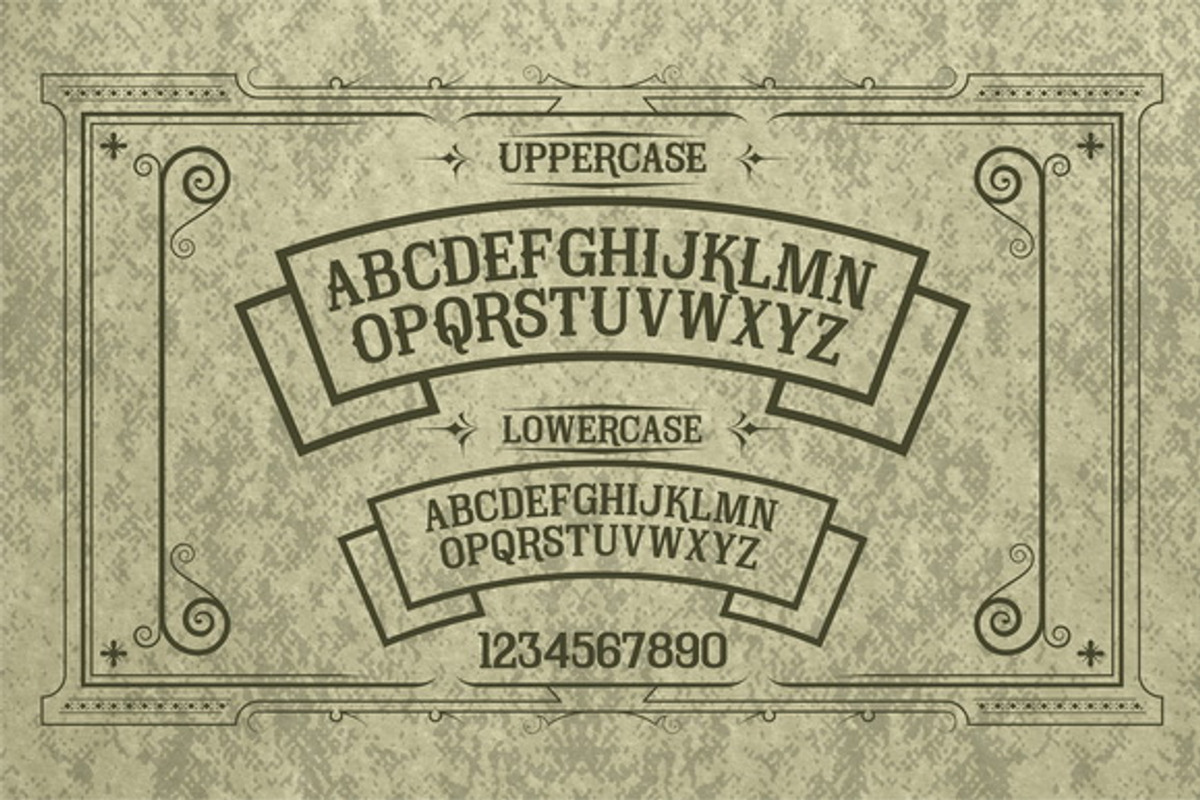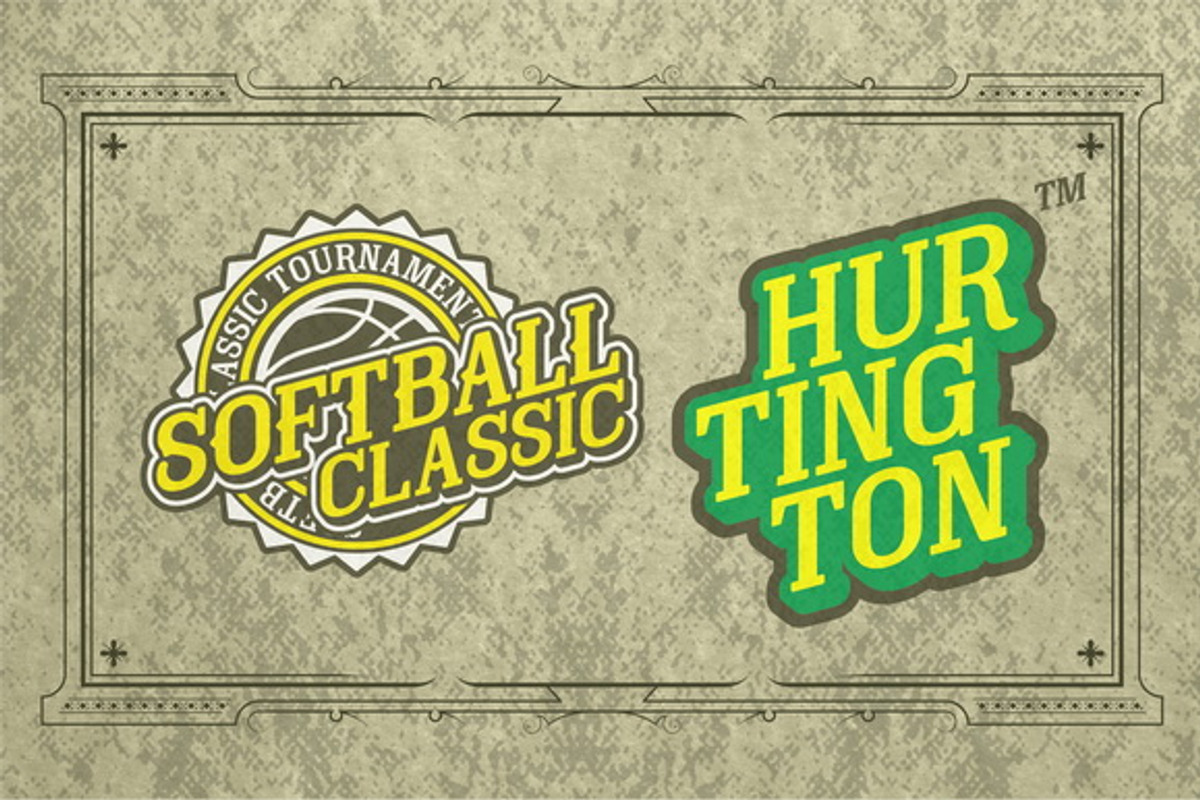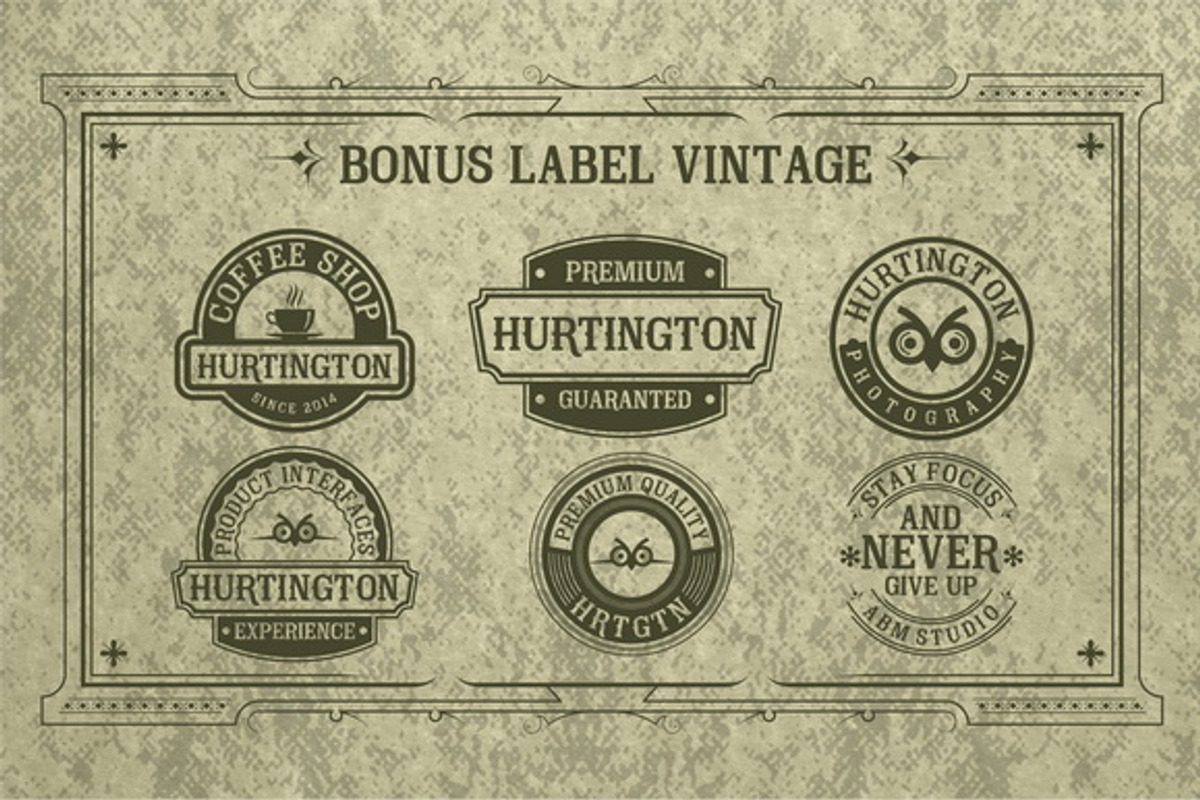
Hurtington Font
Hurtington Font by ABMStudio is a font selected for branding, posters, packaging, typography.
- Available uppercase, lowercase, numerals, basic punctuations.
Why Hurtington Font is worth a look
Hurtington Font by ABMStudio fits naturally into Branding, posters, packaging, typography.